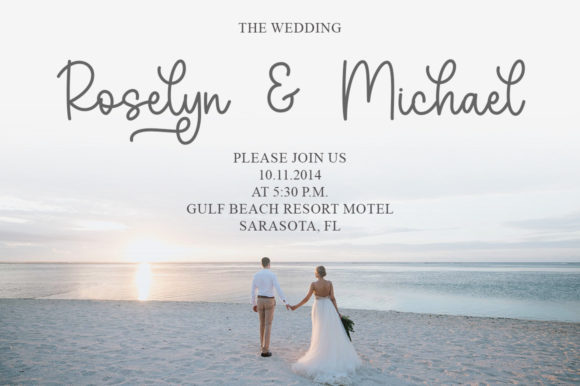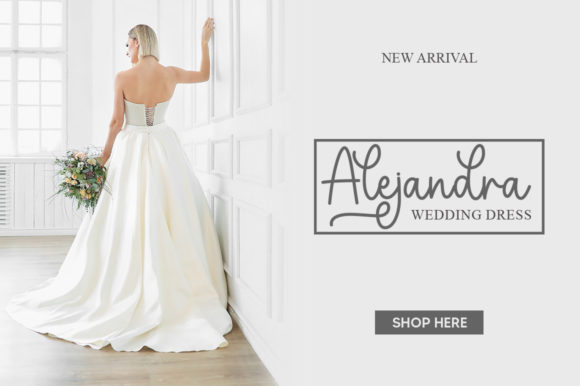
Calysta Font
db-ku.com - Script & Handwritten -- Calysta is a dainty and flowing script font. Add this romantic and lovely looking font to each of your love letters, wedding invitations or favorite design ideas, and you will be astounded by the outcome.